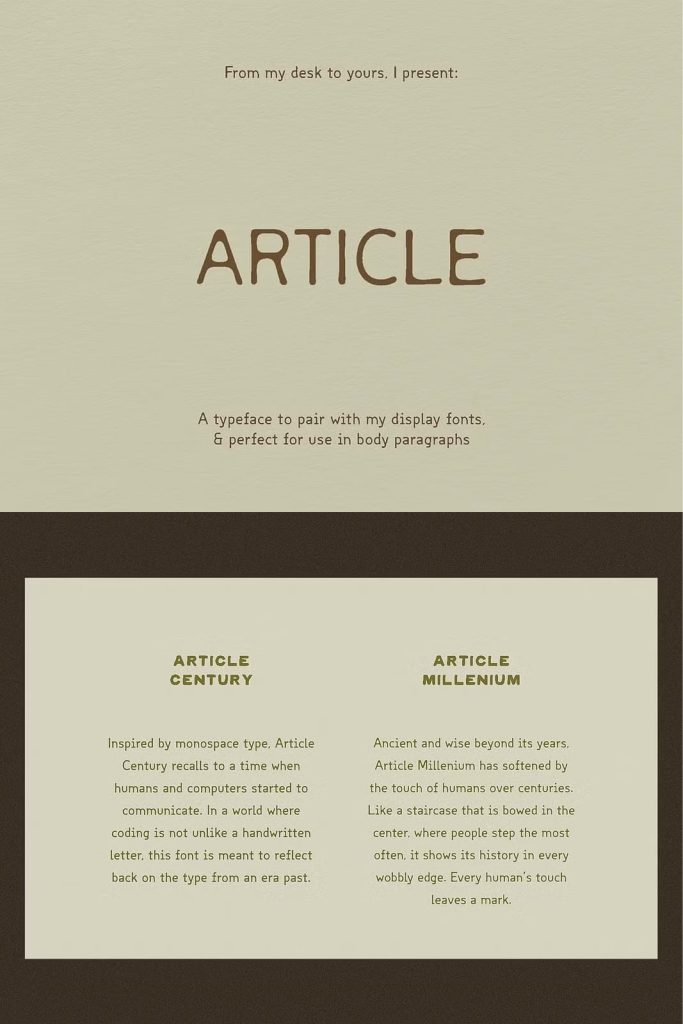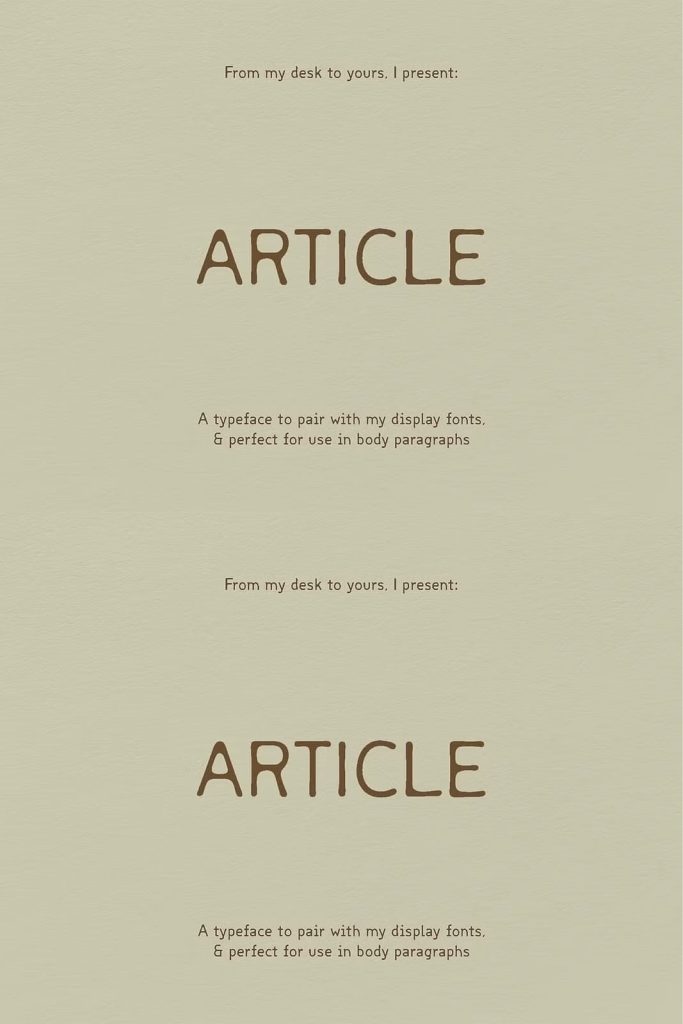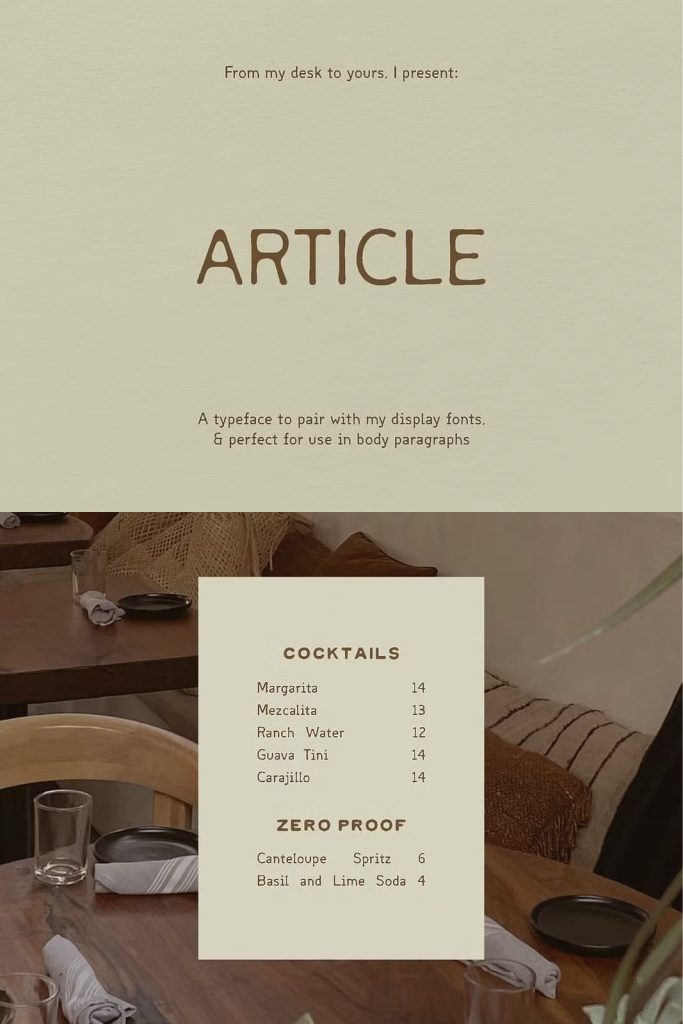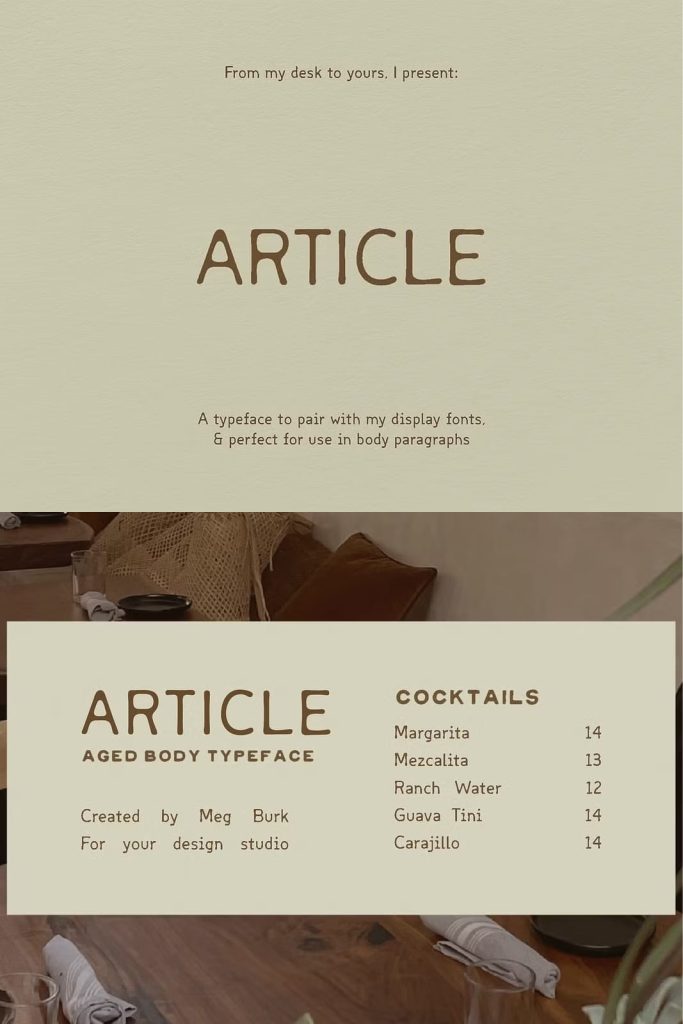
A font to pair with bolder type that needs a companion equally as interesting, but happy to be the sidekick. Inspired loosely by mono fonts, because I gravitate towards them but find them too sterile and even to actually match the display typefaces I use most often. I made two versions, because one was too perfect in some applications, and the other was a little too softened.
Inspired by monospace type, Article Century recalls to a time when humans and computers started to communicate. In a world where coding is not unlike a handwritten letter, this font is meant to reflect back on the type from an era past.